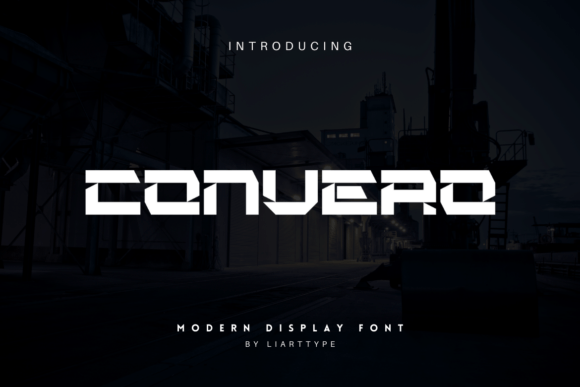
In a world infatuated with screens and technology, where every scroll, click, and swipe defines our digital lives, the Convero font transcends the ordinary, inviting you to join a revolution in visual communication. Prepare to redefine your creative horizons with this masterpiece of modernity.
Convero, a creation of the visionary Liarttype, is a font that reverberates with the essence of the future. Its very structure embodies the visual symphony of technology, echoing the sleek lines and dynamic curves that define our digital landscape. From logos that command attention to website designs that transport users to realms of innovation, Convero is the ultimate conduit for expressing the spirit of the times.
Embrace the boundless versatility of Convero. It's a font that seamlessly adapts to your creative vision, seamlessly flowing from the bold declarations of headlines to the intricate details of body text. Its minimalist style and unique letterforms strike a captivating balance, ensuring that your words will resonate with impact and clarity.
Visualize your designs taking on a new life, exuding an aura of futurism and sophistication. Picture your logos standing out with a distinct character, your posters leaping off the page with vibrant energy, and your presentations commanding attention with an air of authority. Convero is the secret weapon in your creative arsenal, transforming ordinary designs into extraordinary expressions of innovation.